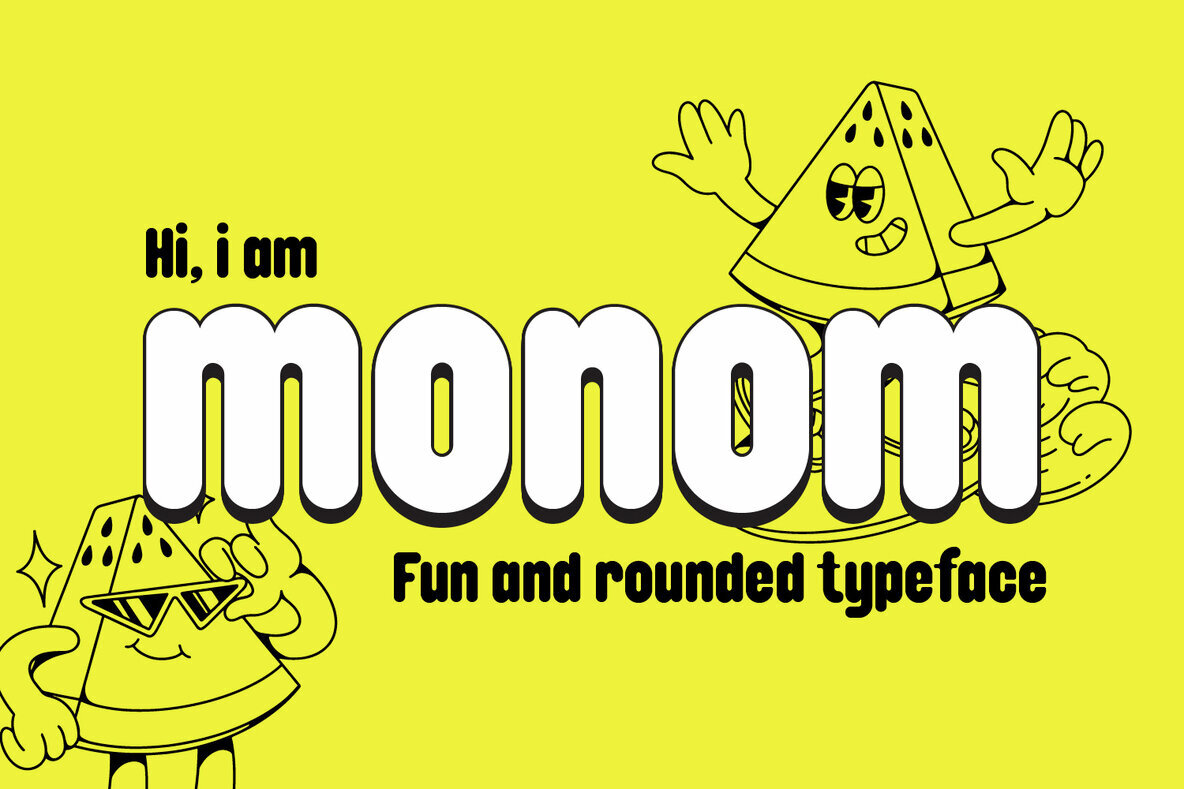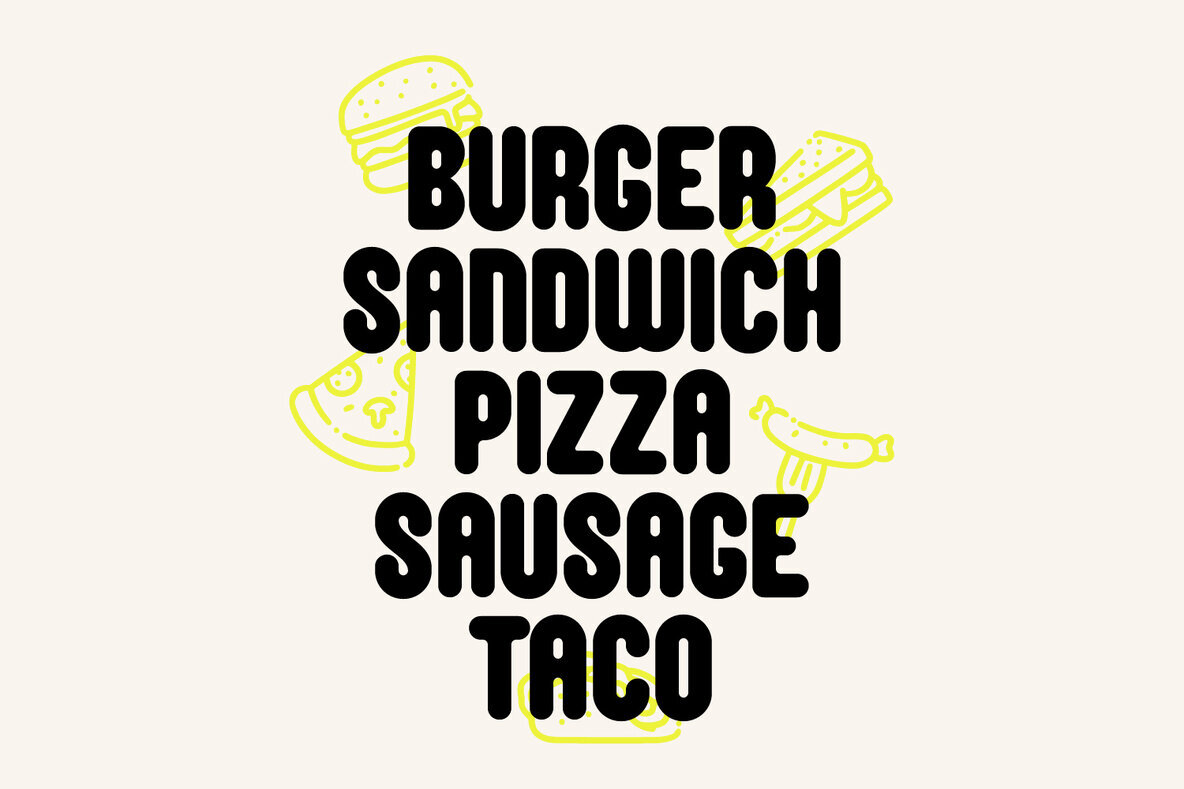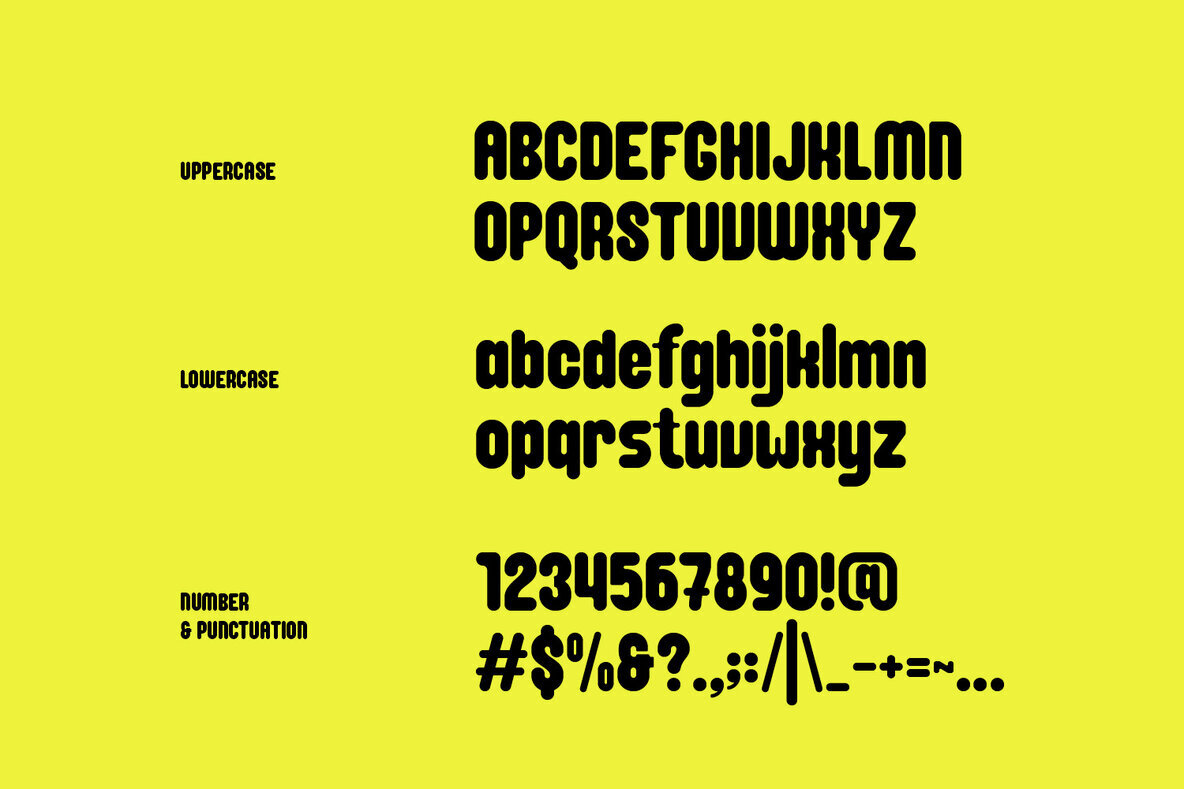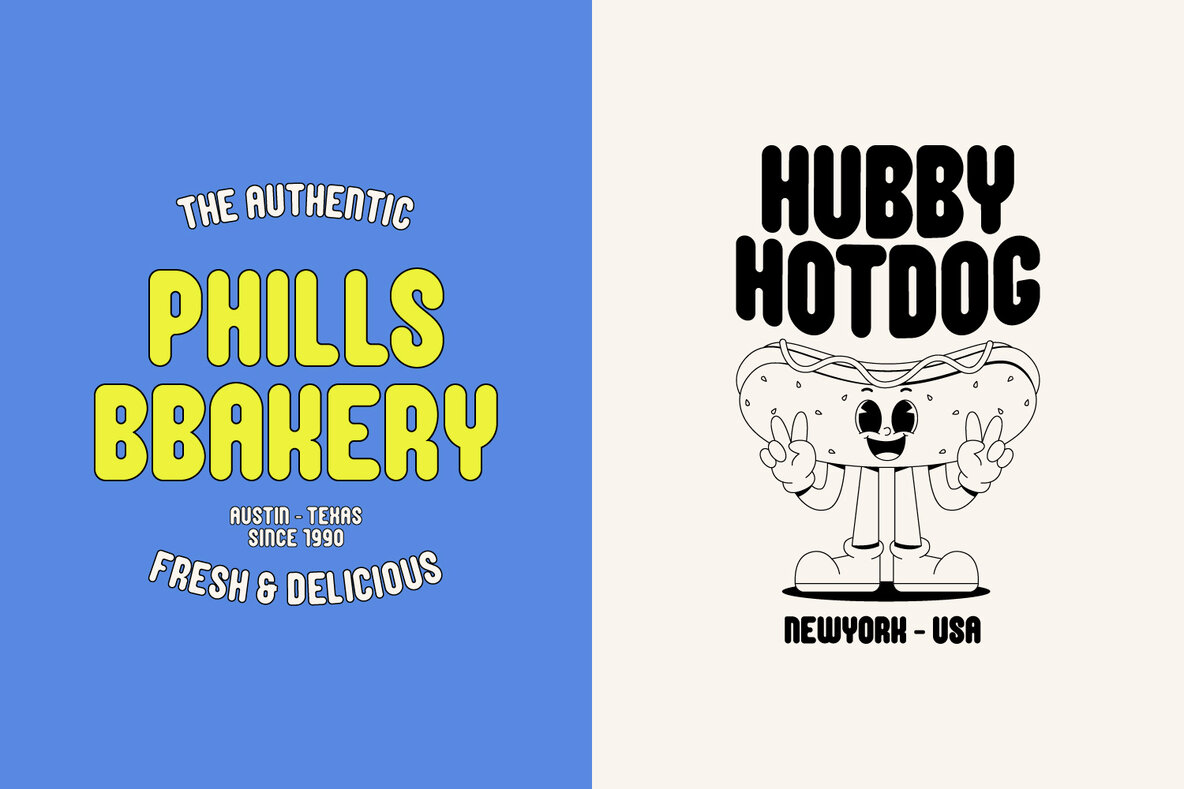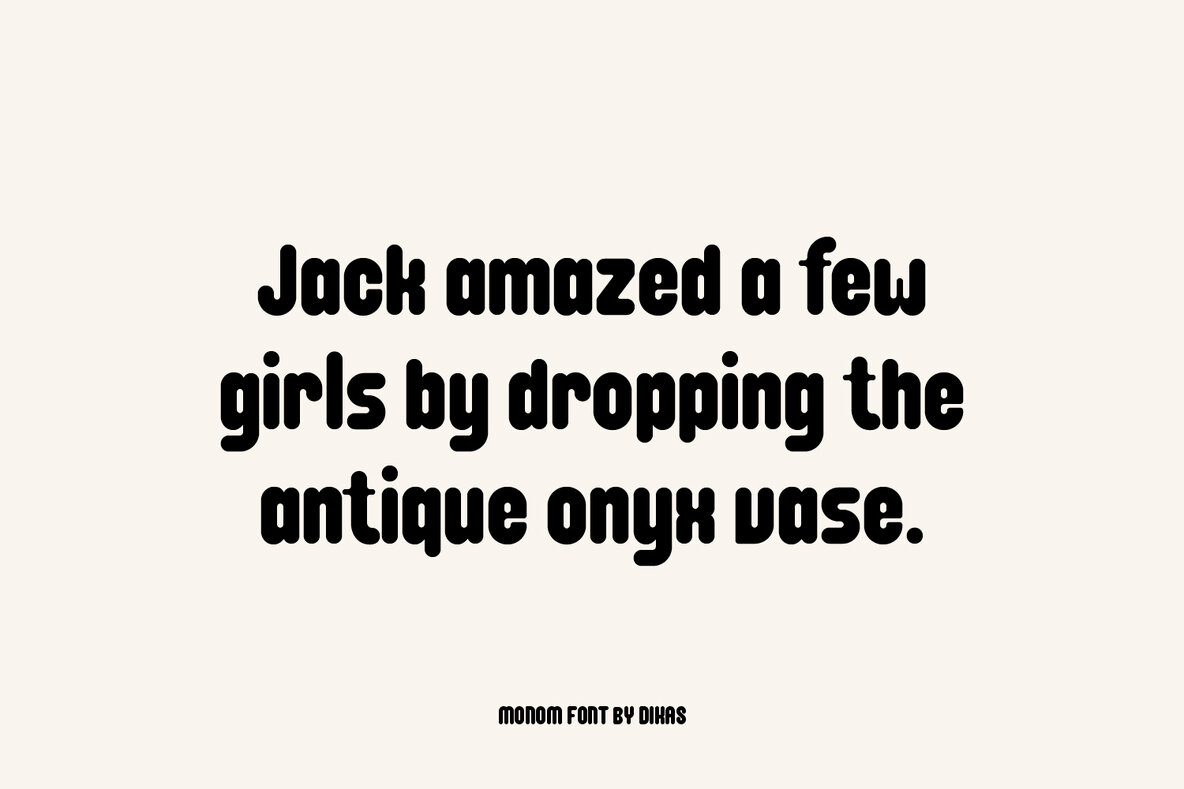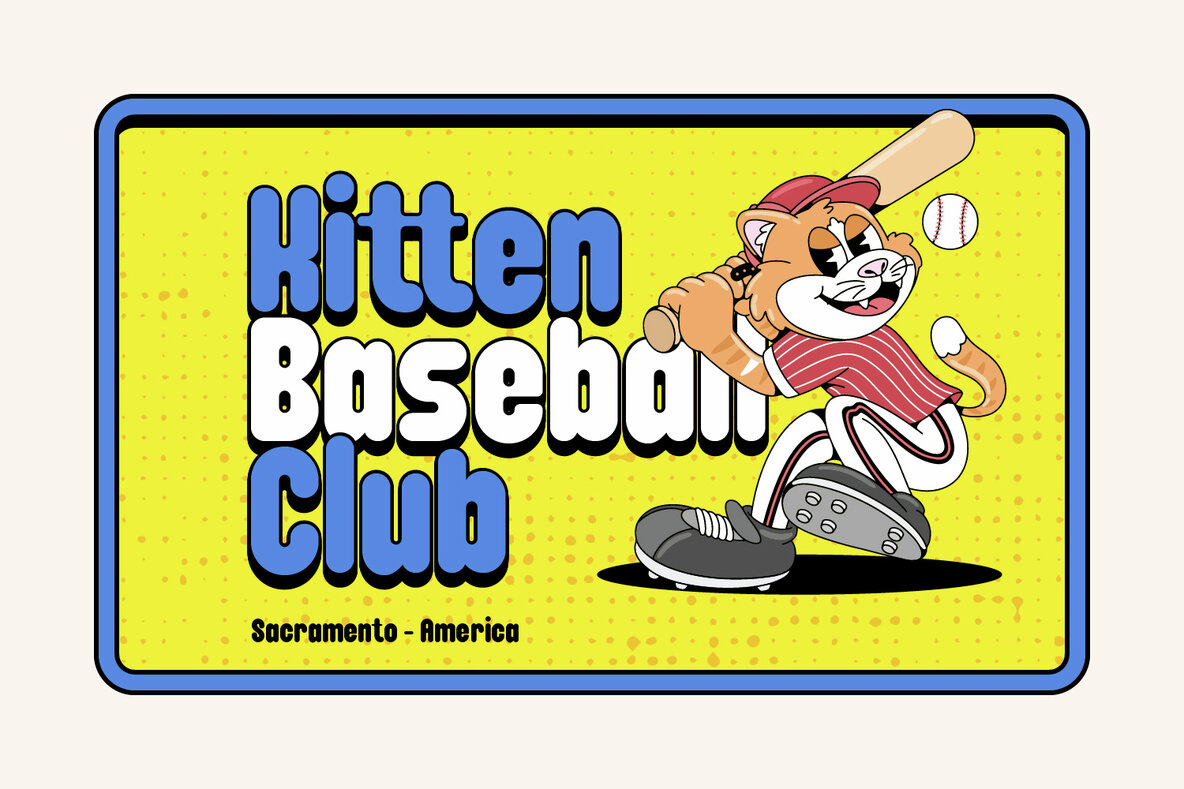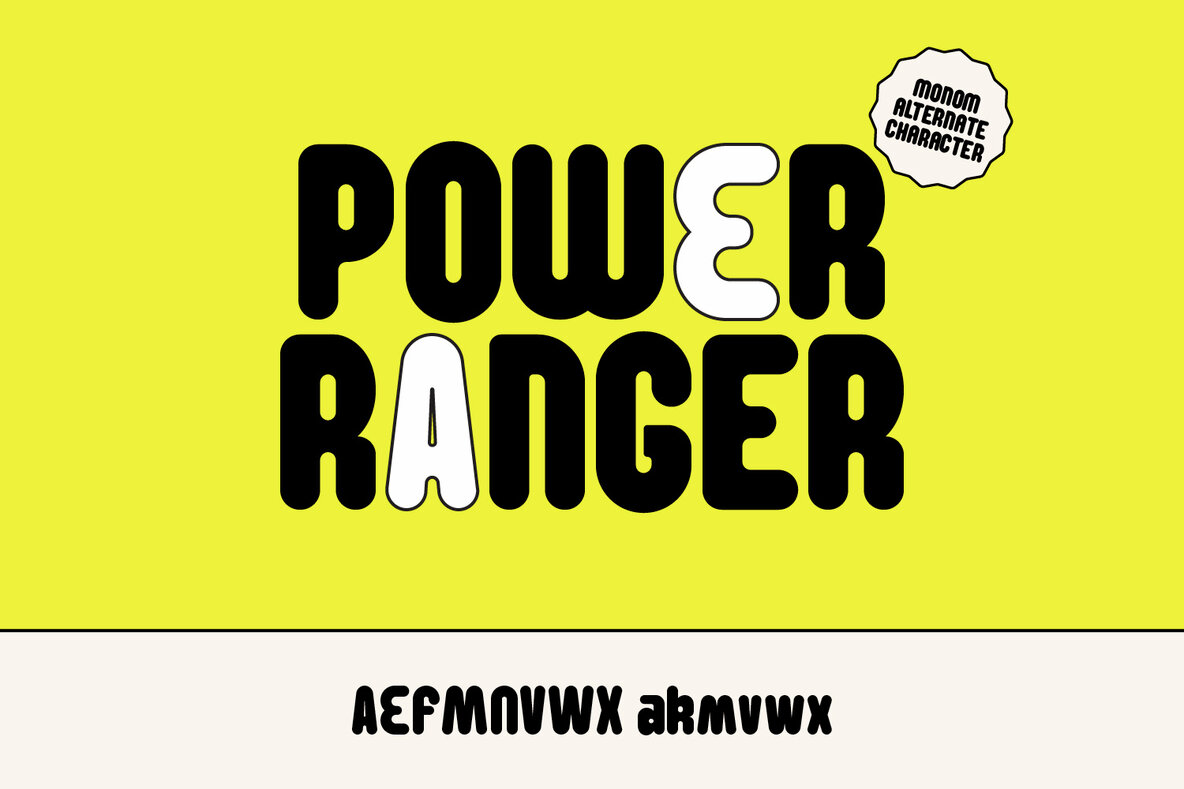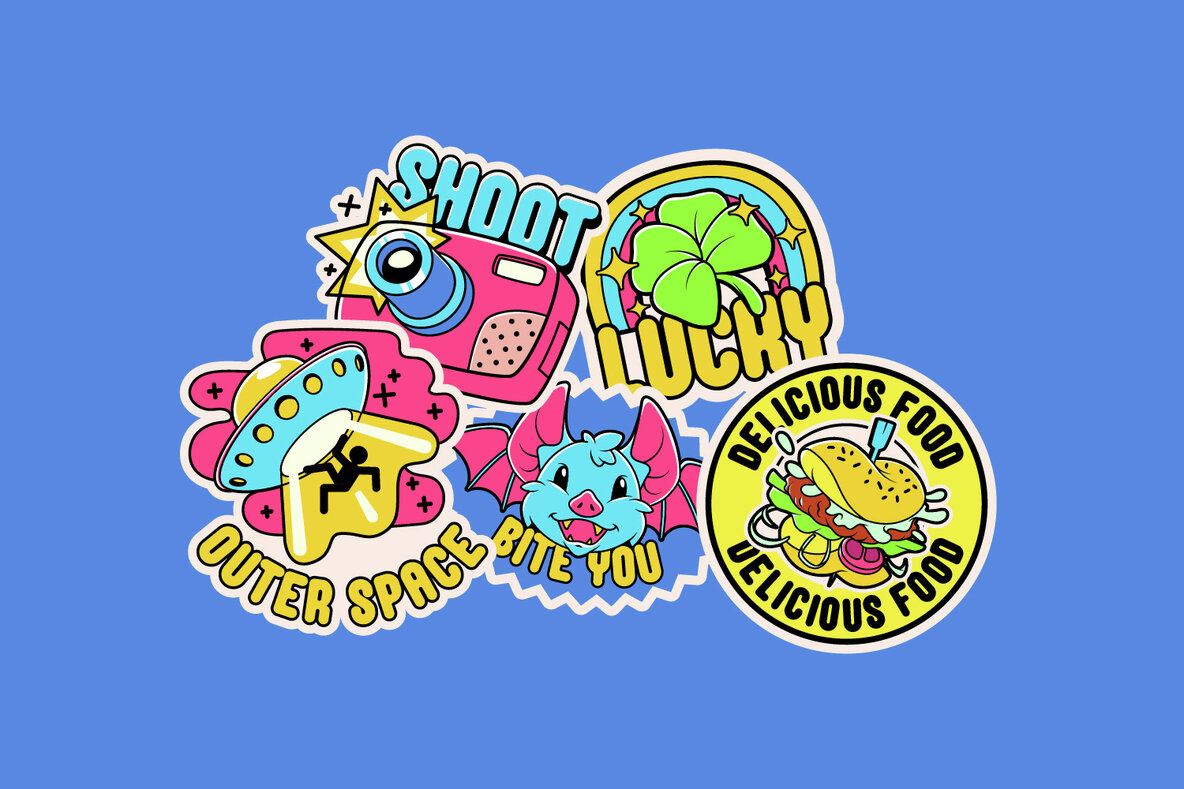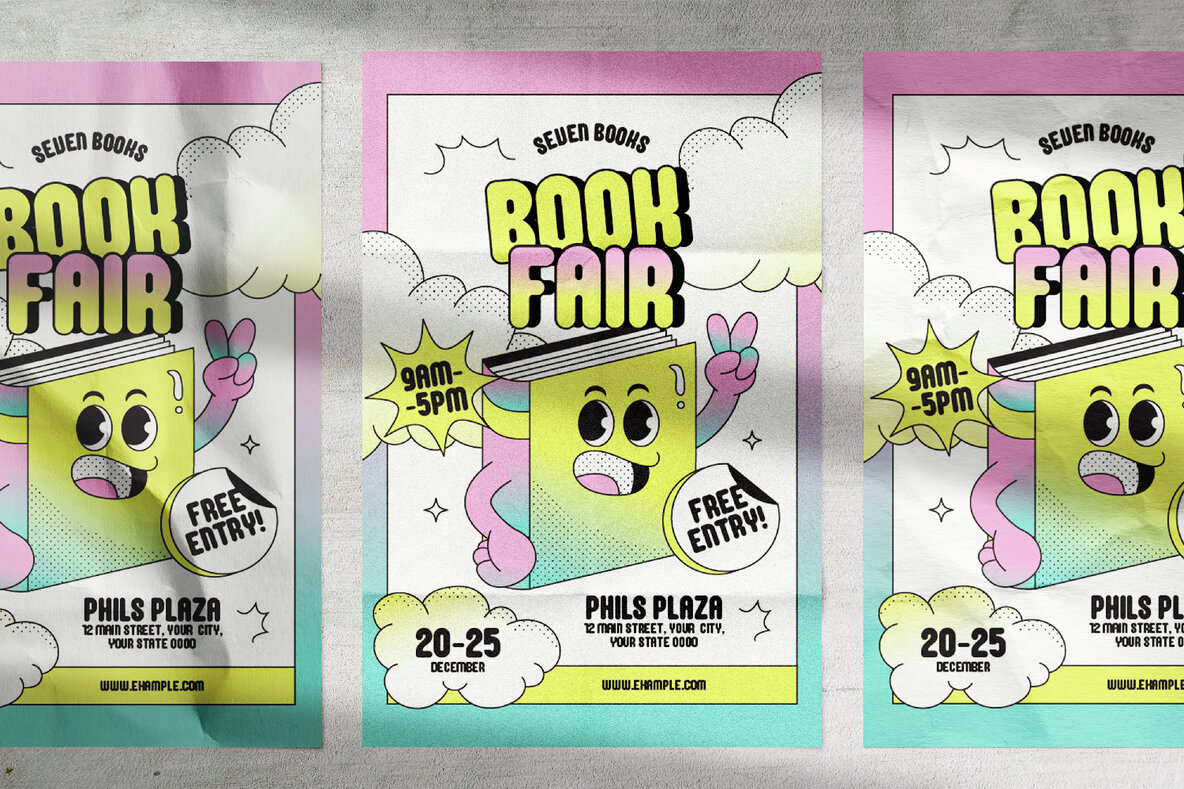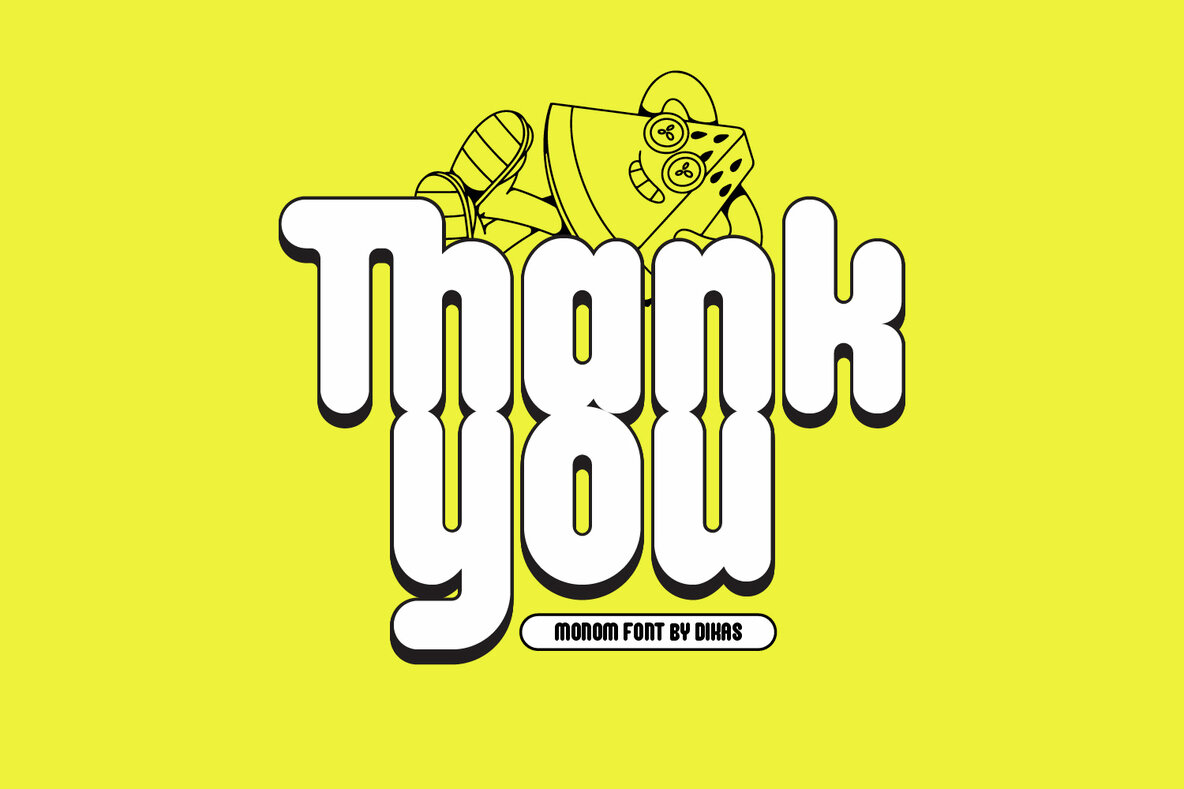
Monom Font
Monom Regular
Monom is a rounded sans-serif typeface that infuses any project with boldness and cheer. Its playful character is ideal for retro and child-friendly themes, bringing a delightful sense of fun and energy to your designs. Whether you're crafting posters, designing food menus, creating logos, or producing labels, Monom delivers a lively and vibrant touch that stands out.Monom: Retro Playful Font